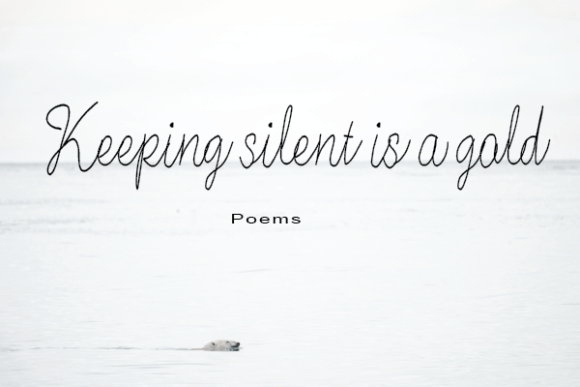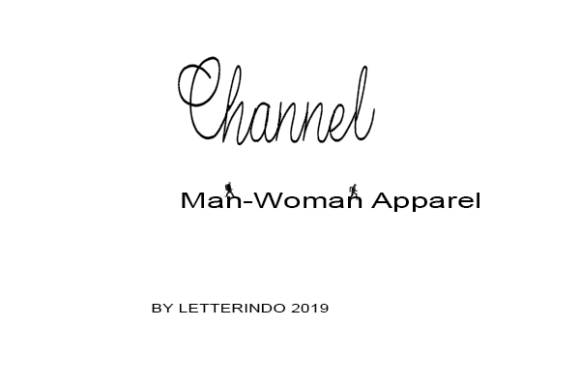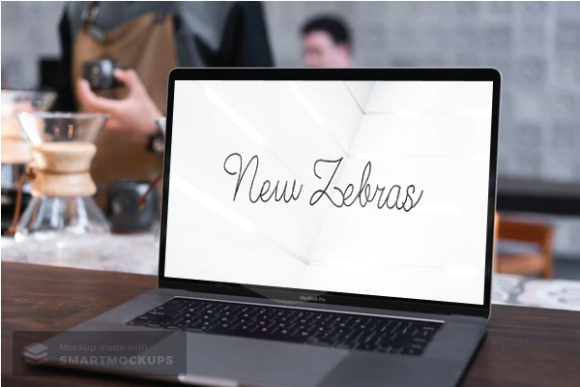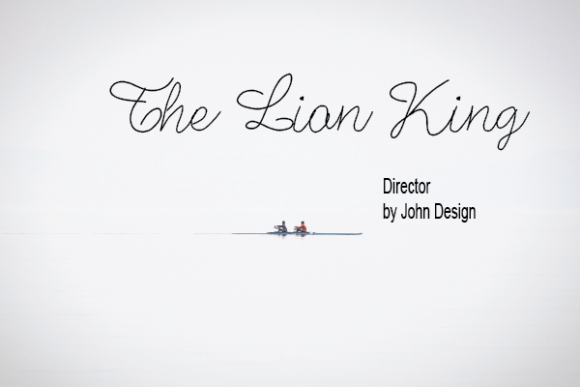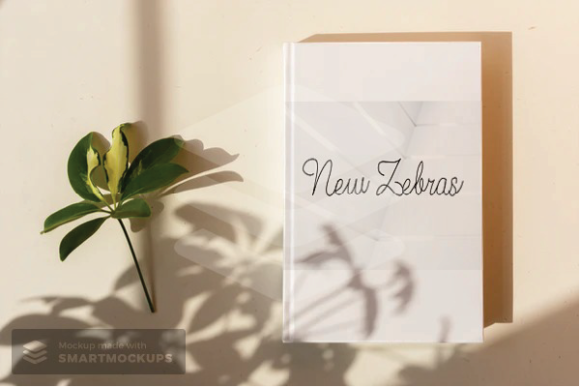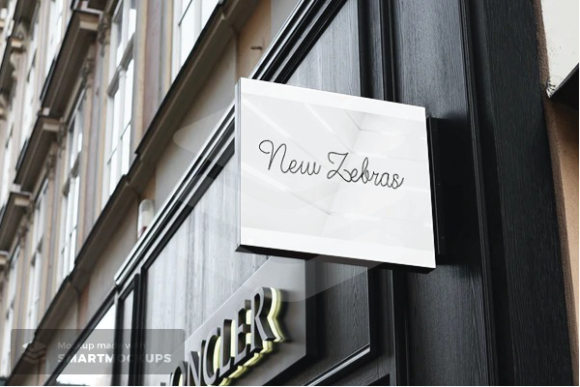
Introduction to New Zebras Font
New Zebras is a sweet, rounded calligraphy handwritten font.
It will elevate a wide range of design projects to the highest level, be it branding, headings, wedding designs, invitations, signatures, logos, labels, and much more .
Key Features of New Zebras Font
Why Choose New Zebras Font?
New Zebras Font offers exceptional quality and versatility, making it a valuable addition to your design toolkit. Whether you’re creating for personal projects or commercial use, New Zebras Font delivers professional results.